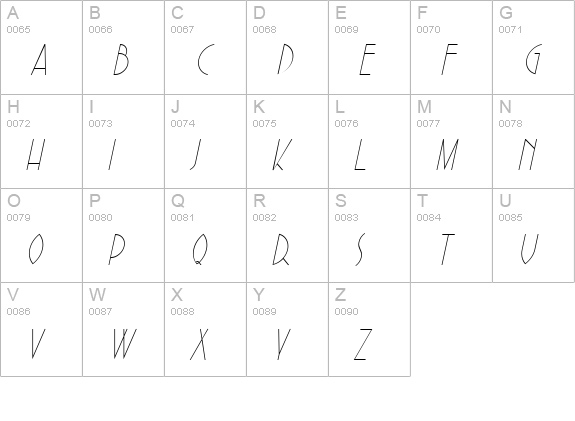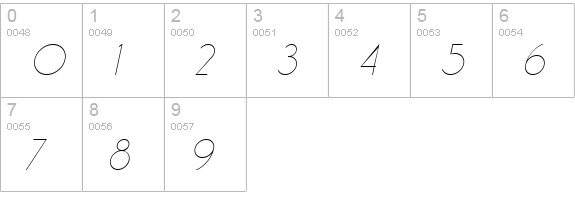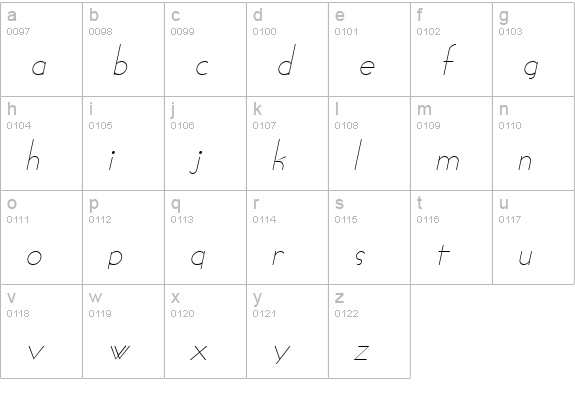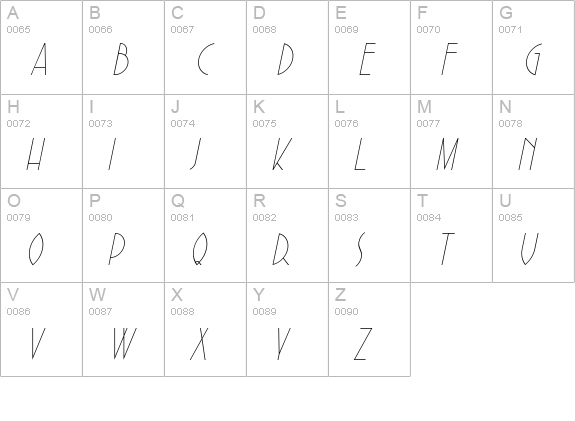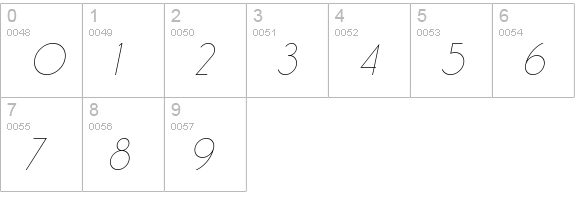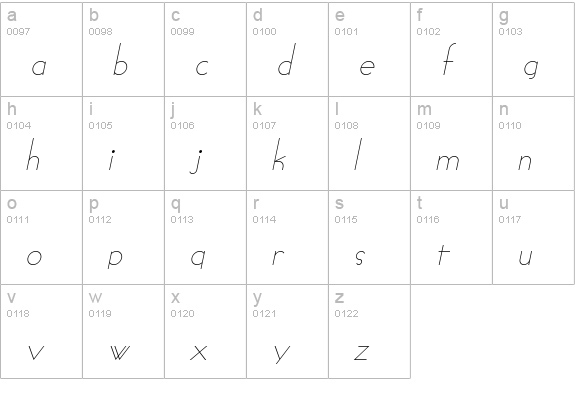
Sadelle Italic Font Details
Sadelle Italic is a distinctive, italic variant in the Sadelle typeface family \xE2\x80\x94 well suited to design and typography projects.
Sadelle Italic is a beautiful and elegant font that effortlessly captures attention with its unique and sophisticated design. Its sleek and slender letterforms exude a sense of grace and refinement, making it the perfect choice for projects that require a touch of subtle elegance. The Sadelle Italic font offers a harmonious balance between traditional and contemporary typographic elements. Each letter is meticulously crafted with delicate curves and gentle slants, creating a sense of movement and fluidity on the page. Its italicized style adds a touch of sophistication and charm to any text, making it ideal for invitations, wedding stationery, branding, and more. What truly sets Sadelle Italic apart is the fact that it is freely available to download at FontsMarket.com. This means that designers, creatives, and anyone in need of a high-quality font can easily access and use Sadelle Italic without any cost. Its availability for free ensures that everyone has the opportunity to create stunning designs with this remarkable font, regardless of budget constraints. Whether you are designing a logo, crafting a headline, or simply adding a touch of elegance to your personal projects, Sadelle Italic is the perfect choice. Its timeless beauty, combined with its freely available nature, makes it an invaluable asset for any design toolkit. Download Sadelle Italic today and elevate your creations with its exquisite charm and versatility.